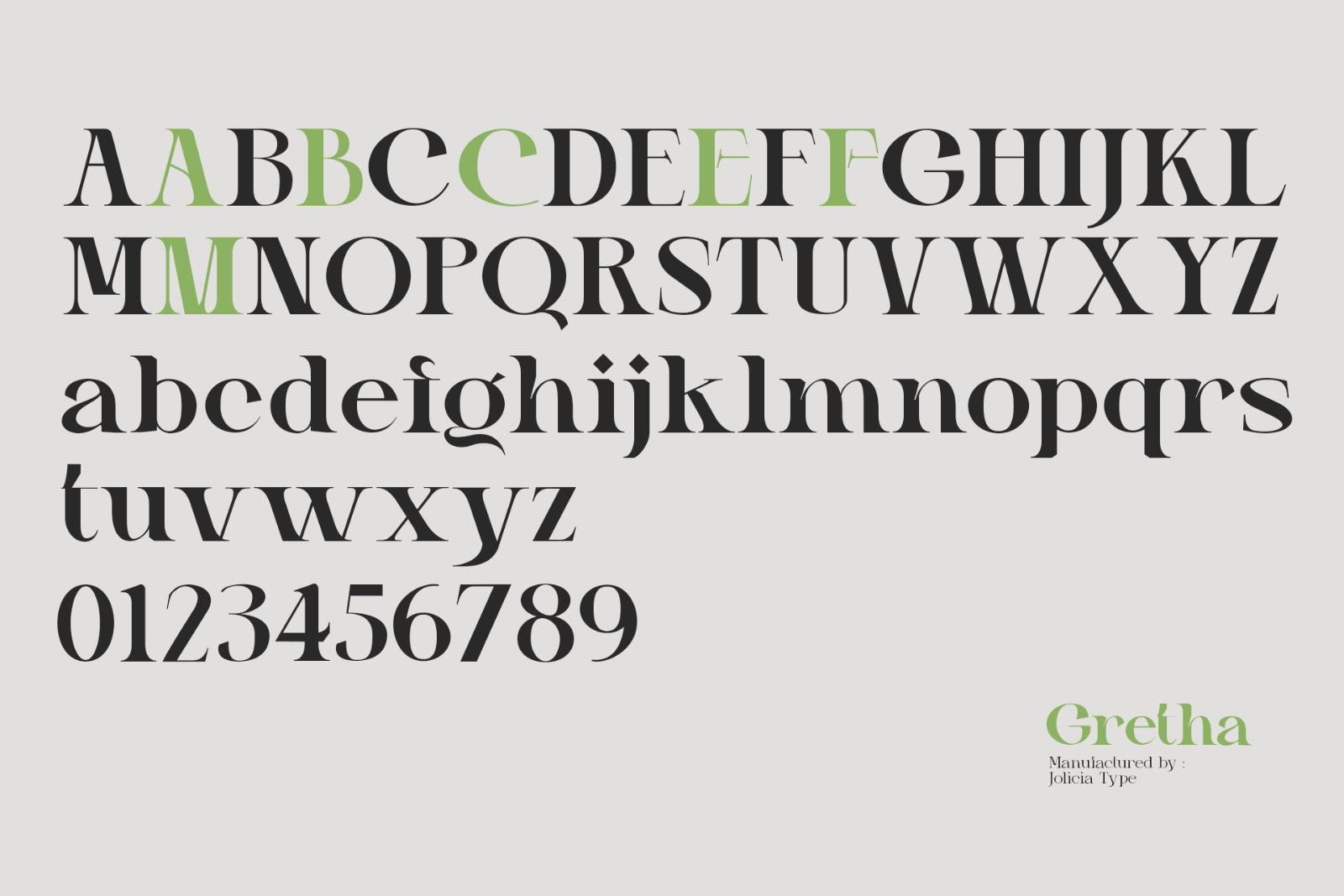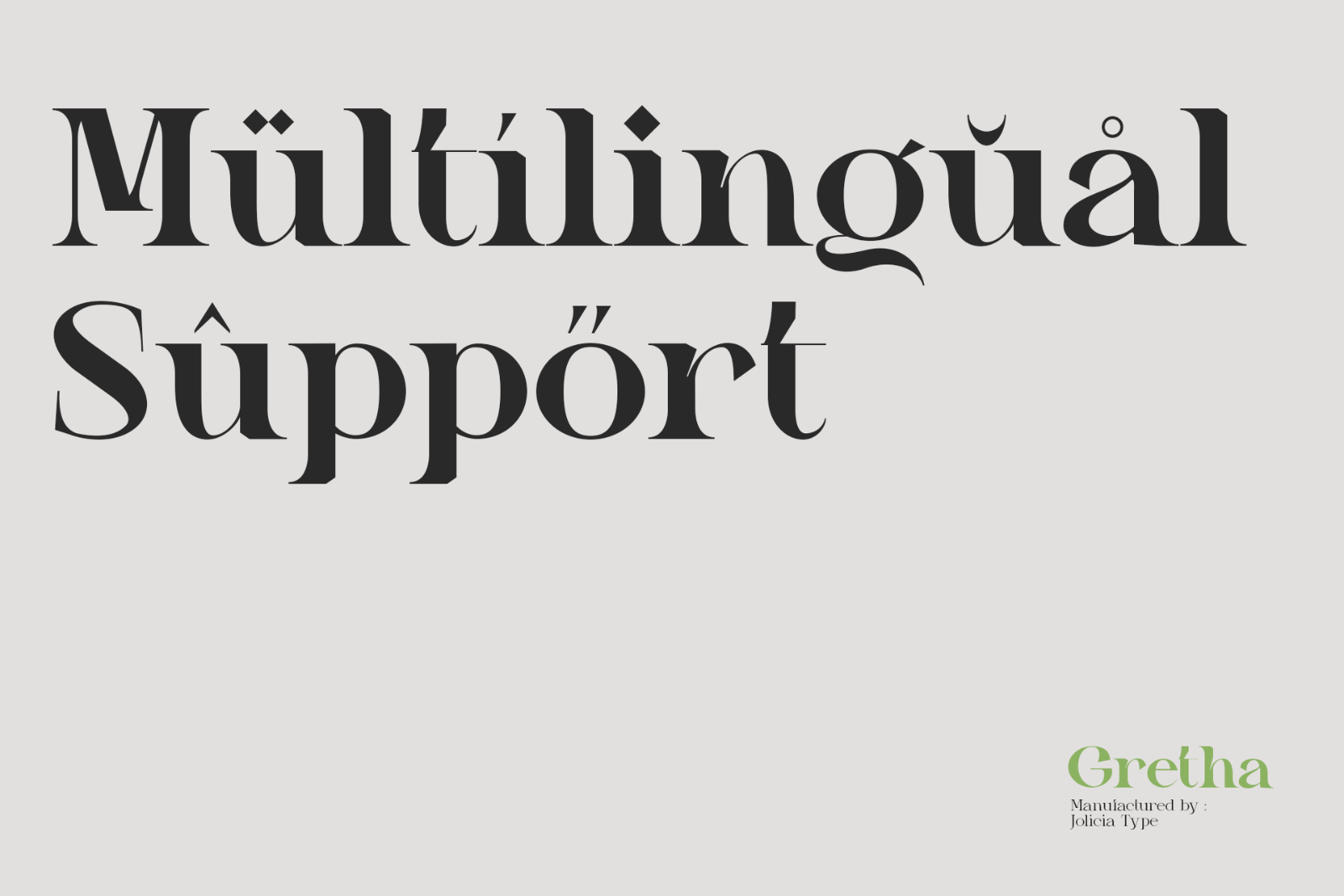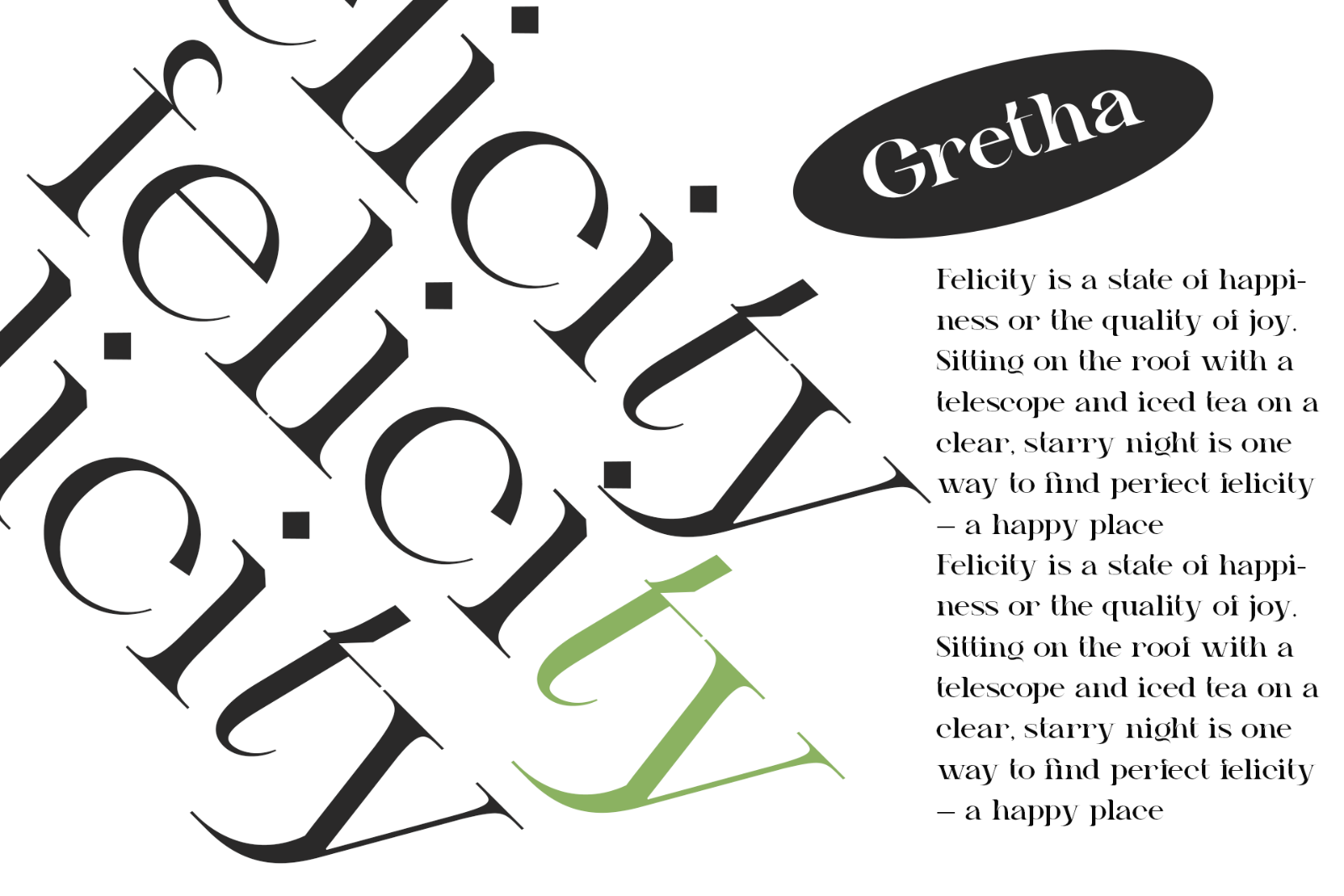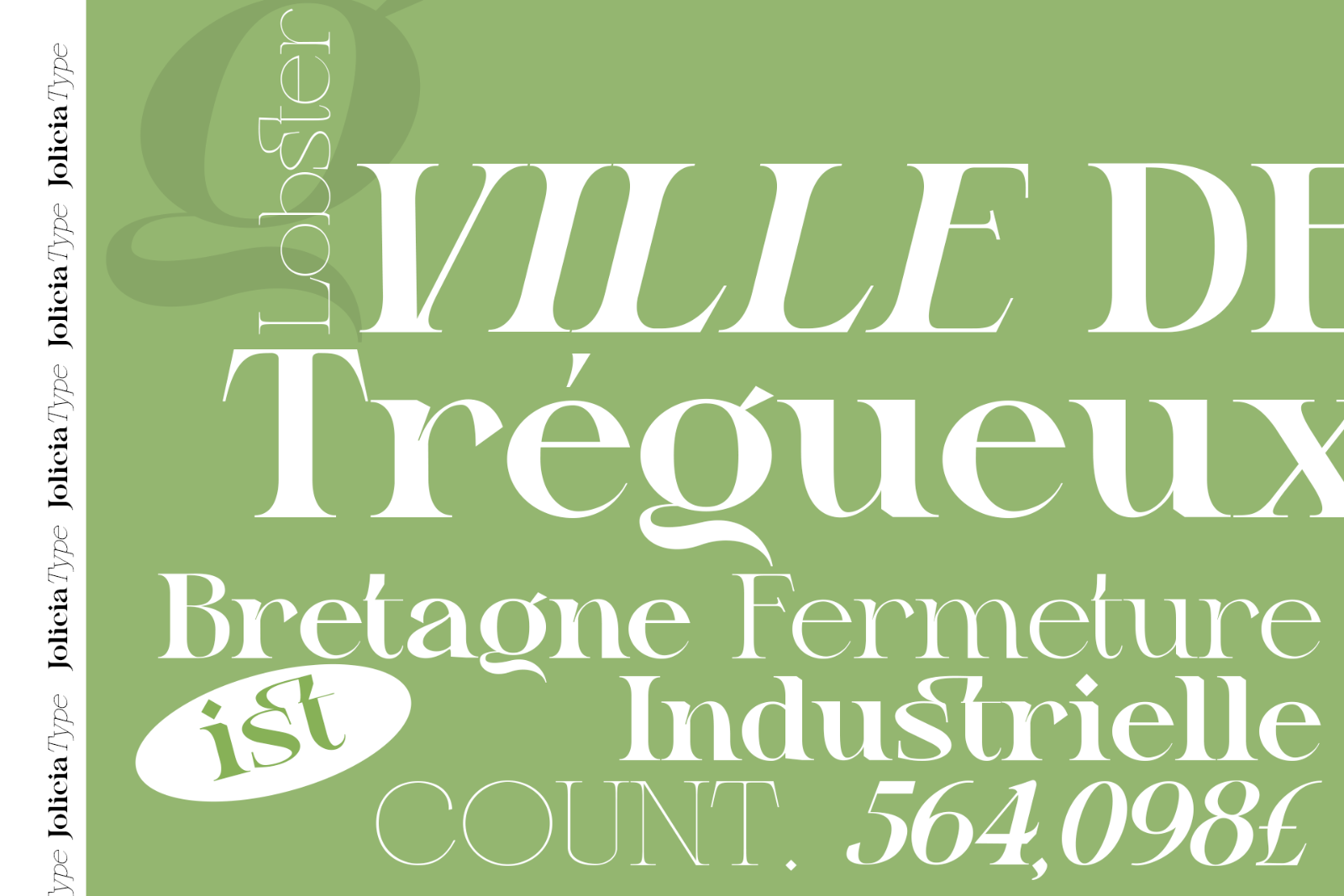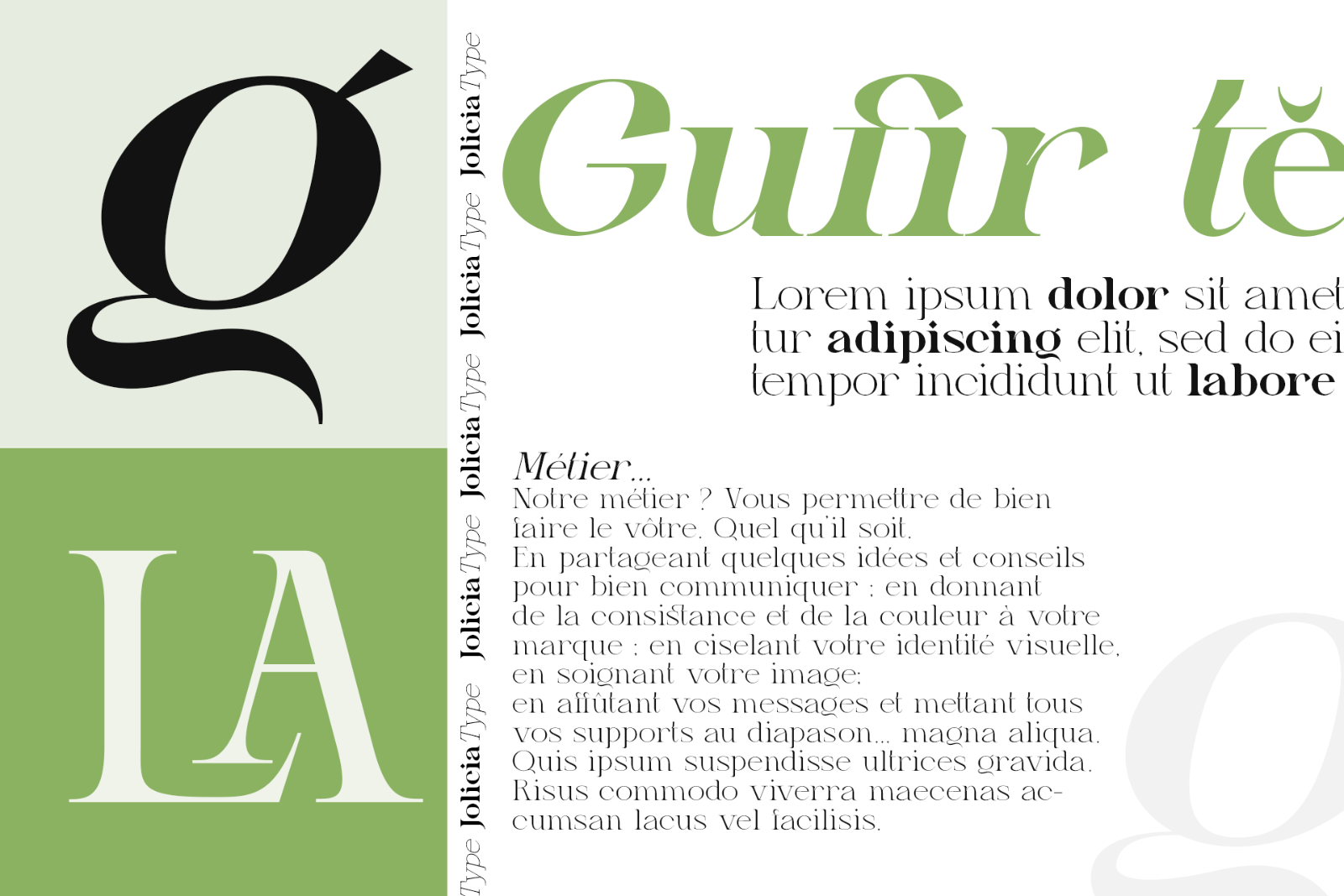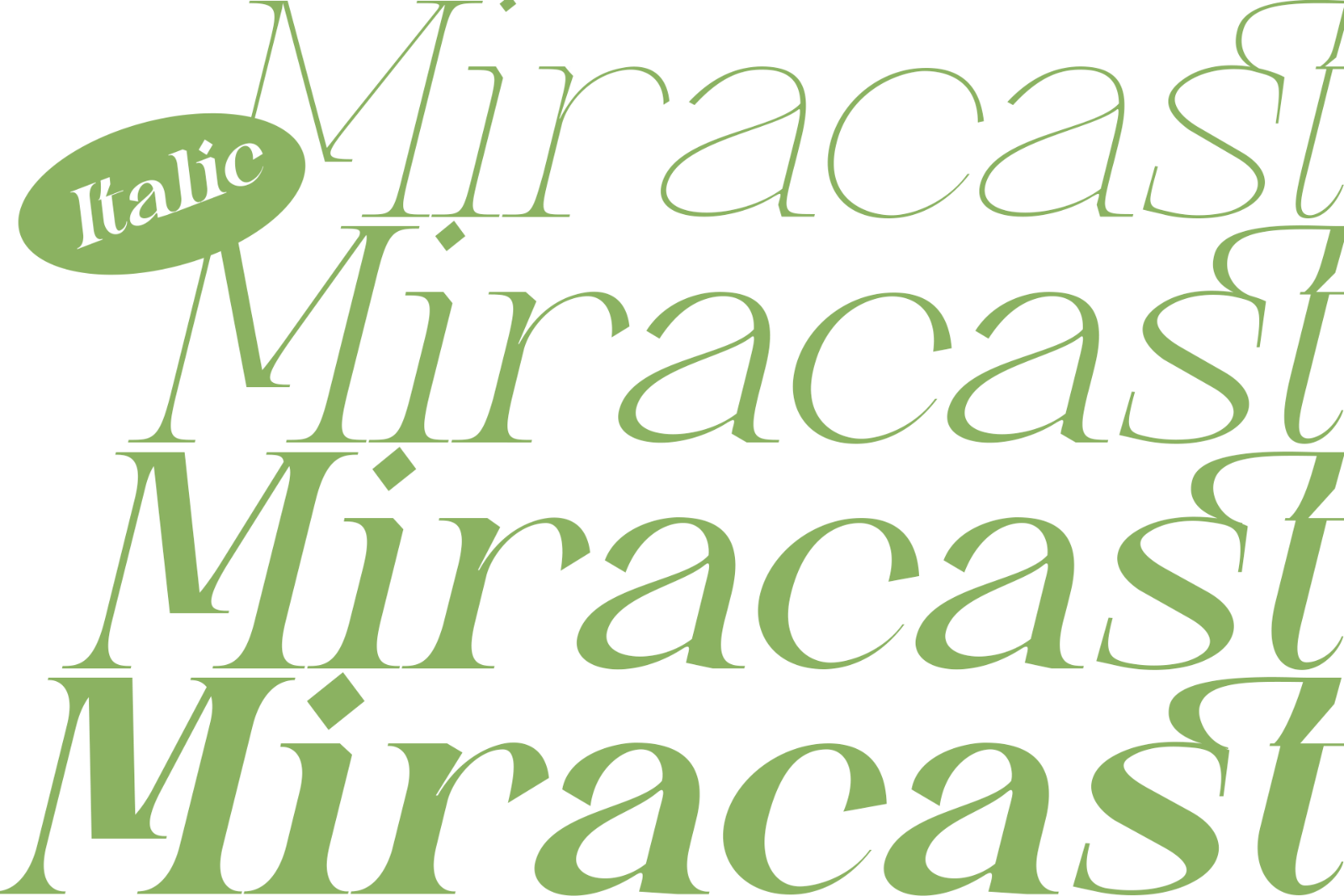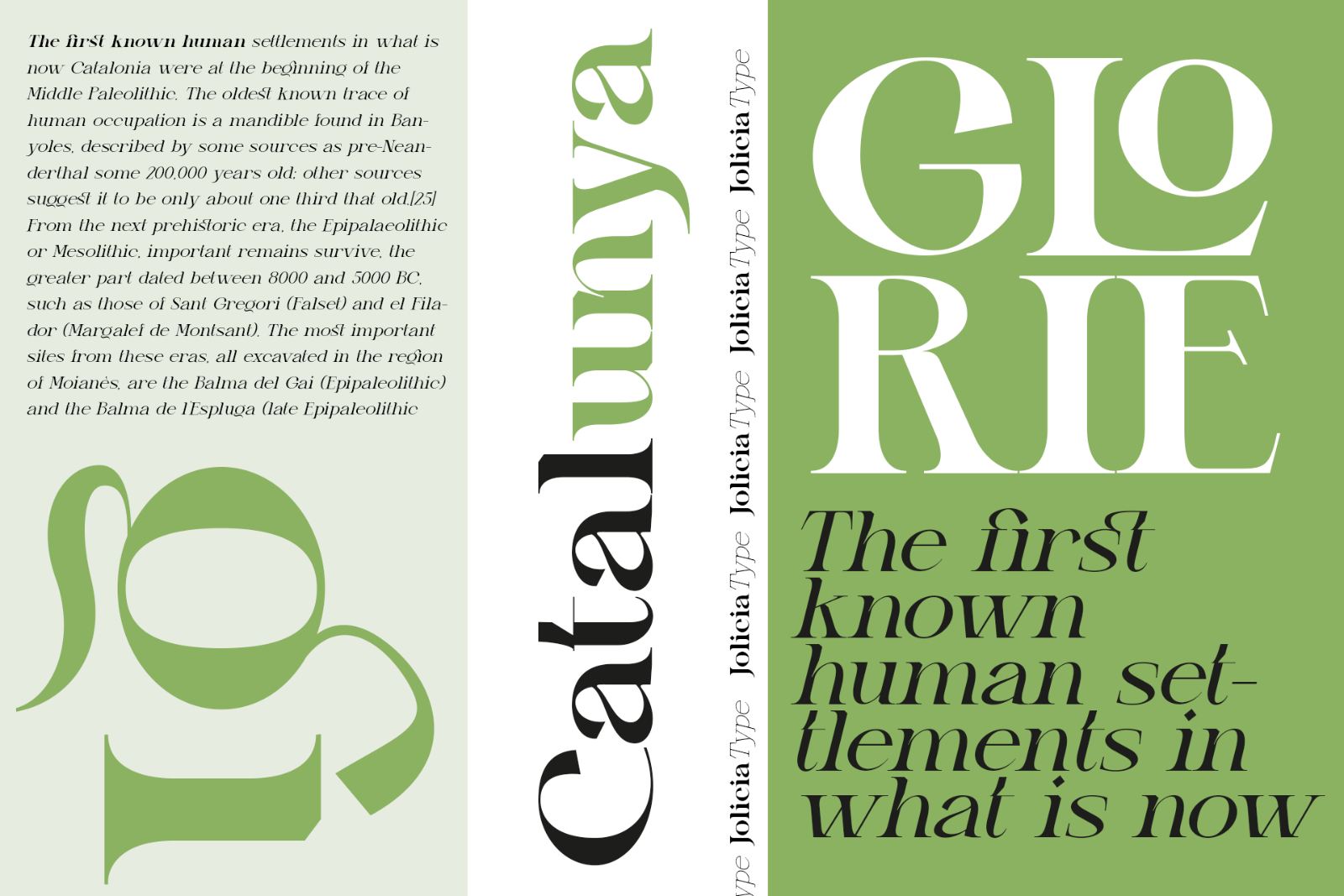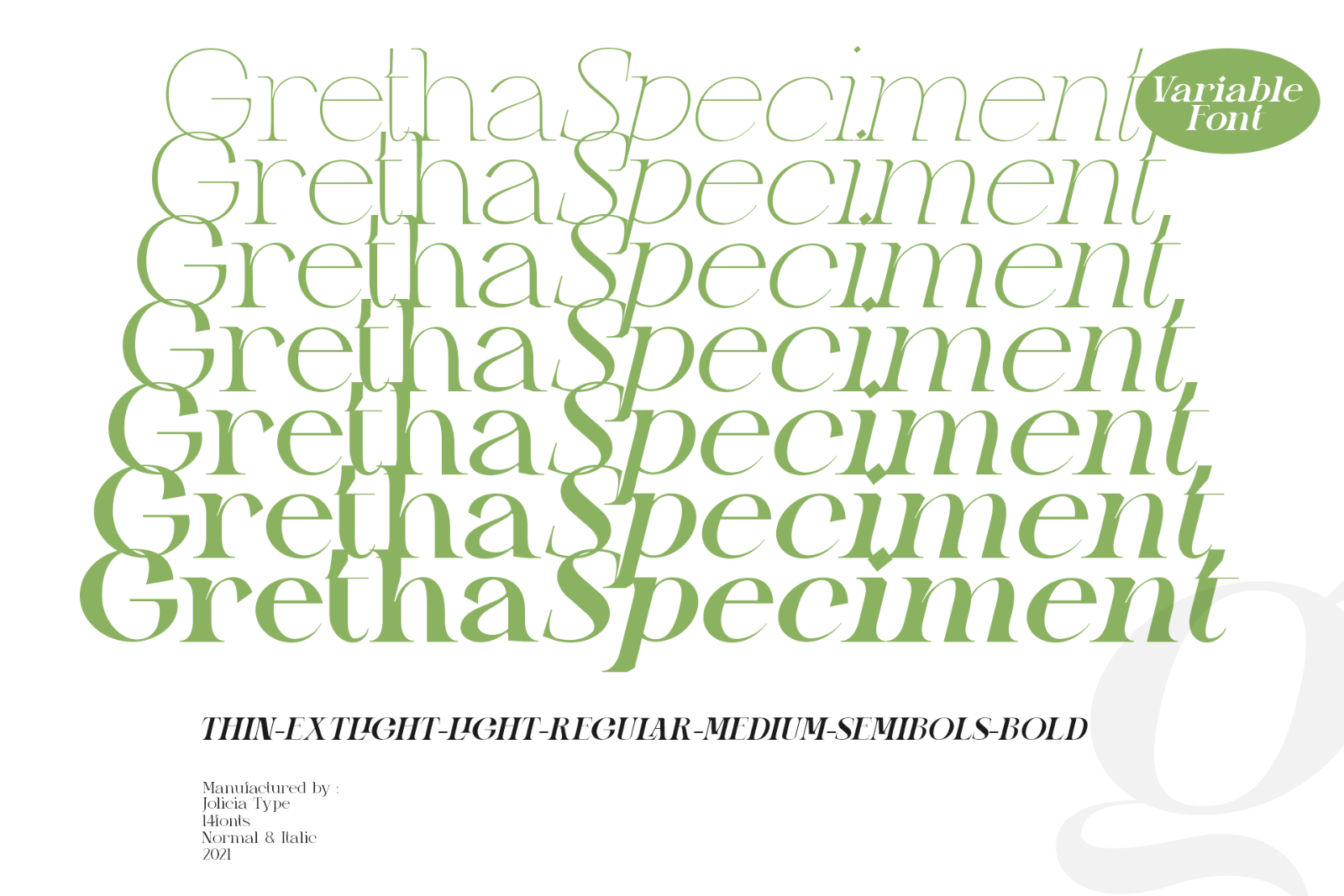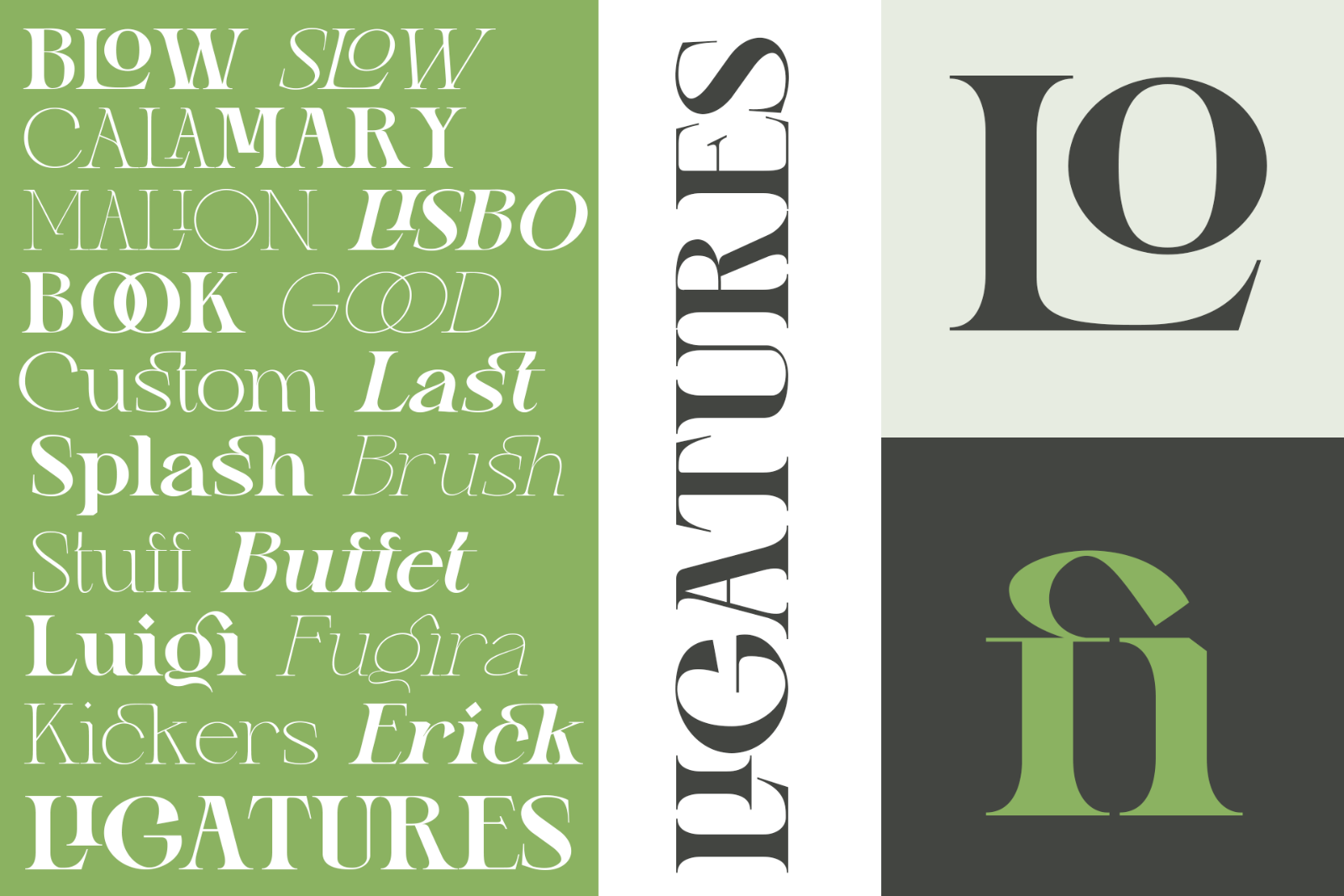
Gretha is a modern display serif, font with a strong and charismatic style
This font is a variable typeface for weight By using the variable sliders in your design software you have a range of weight options in compatible software like Adobe Illustrator. Play around with individual letters to give your type a unique look. Included in this family are alternate characters to add even more styling options.
– Multilanguange
– Font Family totals 14 fonts
– Variable font